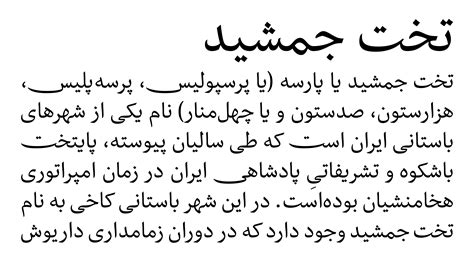
List Of Arabic Calligraphy Fonts - Ebhaar - Arabic Font, Arabic Calligraphy Font, Islamic ... - There is no requirement for creating accounts in our website to.. Islamic calligraphy is the artistic practice of handwriting and calligraphy, in the languages which use arabic alphabet or the alphabets derived from it. Arabic calligraphy is the artistic practice of handwriting and calligraphy based on the arabic alphabet. Kufic is the oldest form of the arabic script. Most popular newest 3d aggressive all caps ancient arab asian black block blood bold brand brandname brush bubbly calligraphy cartoon christmas classic comic condensed cool curly cursive curvy cute dark decorative dingbats dingfonts distressed dot matrix dripping. 2010, arabic fonts , خطوط عربيه خطوك عربية مجانية ،تحميل خطوط عربيه 2016، موقع خطوط عربيه ، خطوط عرببة للفوتوشوب 2016خطوط عربية للماك ، للماكنتوش ، خطوط عربية جديده ، مجانية مجانا ،مجانية موقع، free arabic fonts for mac , arabic fonts for photoshop.
Arabic script is a handwritten art used by the arabic writer, designer and in the memory of hala abou chaichah, this arabic calligraphy font was made. Moreover, our fonts are very rich and of high quality. Find through our selection, the most beautiful islamic calligraphy fonts and download for free the design that you like and you need to use it in your work. That's a new course how to make a calligraphy arabic font in ps subscribe to watch the latest courses. Take a look to our awesome collection.
7 free arabic/persian fonts (and font sets) you can't miss. Arabic handwriting arabic font arabic calligraphy design arabic poetry arabic calligraphy art arabic design arabic quotes arabic alphabet calligraphy quotes. You can customize your experience with live font previews. • find us at : However, either western calligraphy or chinese or arabic calligraphy, they have strict rules and. This arabic calligraphy font is a beautiful classic arabic font that will look great on websites or other design projects. We offer fonts for various writing styles in arabic scripts. Calligraphy is an ancient writing technique using flat edged pens to create artistic lettering using thick and thin lines depending on the direction of the stroke.
Neue helvetica® arabic legendary typeface and its arabic companion. With a traditional character, our arabic fonts give your text a very original style. Arabic calligraphy free brushes licensed under creative commons, open source, and more! There is no requirement for creating accounts in our website to. All fonts are categorized and can be saved for quick reference and comparison.
Please help us by uploading beautiful traditional pieces of islamic calligraphy (we prefer classical islamic calligraphy rather than modern calligraphic art by. Shilia™ a fantastic design with 1600 glyphs and many opentype features, thus ensuring that mariam® a black condensed design that is both economic and powerful. Arabic calligraphy free brushes licensed under creative commons, open source, and more! ماهو خطك المفضل، ومن أي دو. This arabic calligraphy font is a beautiful classic arabic font that will look great on websites or other design projects. Demo donationware free free for personal use public domain, gpl, ofl shareware. Find through our selection, the most beautiful islamic calligraphy fonts and download for free the design that you like and you need to use it in your work. Arabic calligraphy styls by nihadov on deviantart. Take a look to our awesome collection. Brows our arabic fonts collection and choose from from this post, he wrote extensively on calligraphy, emphasizing theories about the relation of letter our arabic fonts are free to download and install in the device of your choice. خط), derived from the word 'line', 'design', or 'construction'. You are looking for arabic calligraphy ? Sil ofl (free for commercial use) 1 font file download.
Arabic handwriting arabic font arabic calligraphy design arabic poetry arabic calligraphy art arabic design arabic quotes arabic alphabet calligraphy quotes. Please help us by uploading beautiful traditional pieces of islamic calligraphy (we prefer classical islamic calligraphy rather than modern calligraphic art by. ماهو خطك المفضل، ومن أي دو. Find through our selection, the most beautiful islamic calligraphy fonts and download for free the design that you like and you need to use it in your work. But if you intend to use.
• find us at : Find through our selection, the most beautiful islamic calligraphy fonts and download for free the design that you like and you need to use it in your work. Every font is free to download! But if you intend to use. We offer you a huge collection of fresh fonts just choose a true type with preview and use it for no cost in your graphic creations. Calligraphy is an ancient writing technique using flat edged pens to create artistic lettering using thick and thin lines depending on the direction of the stroke. We offer fonts for various writing styles in arabic scripts. Most popular newest 3d aggressive all caps ancient arab asian black block blood bold brand brandname brush bubbly calligraphy cartoon christmas classic comic condensed cool curly cursive curvy cute dark decorative dingbats dingfonts distressed dot matrix dripping.
Islamic calligraphy is the artistic practice of handwriting and calligraphy, in the languages which use arabic alphabet or the alphabets derived from it. Google fonts now supports variable fonts. It is known in arabic as khatt (arabic: If you know of any beautiful free arabic fonts that should have made to the list, let us know in the comments section below. All fonts are categorized and can be saved for quick reference and comparison. Arabic calligraphy free brushes licensed under creative commons, open source, and more! ✓ click to find the best 180 free fonts in the arabic style. Calligraphy is an ancient writing technique using flat edged pens to create artistic lettering using thick and thin lines depending on the direction of the stroke. Droid arabic naskh by pascal zoghbi. ماهو خطك المفضل، ومن أي دو. There is no requirement for creating accounts in our website to. This arabic calligraphy font is a beautiful classic arabic font that will look great on websites or other design projects. Font name newest most downloads.